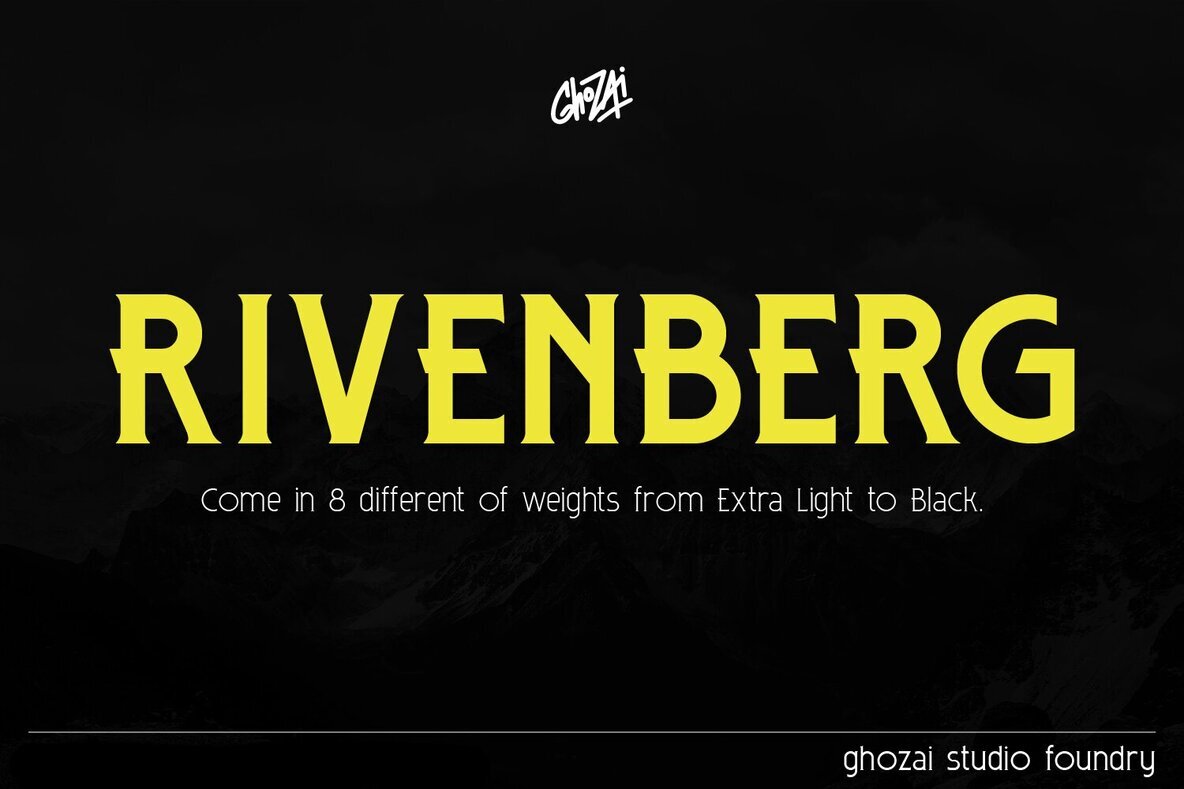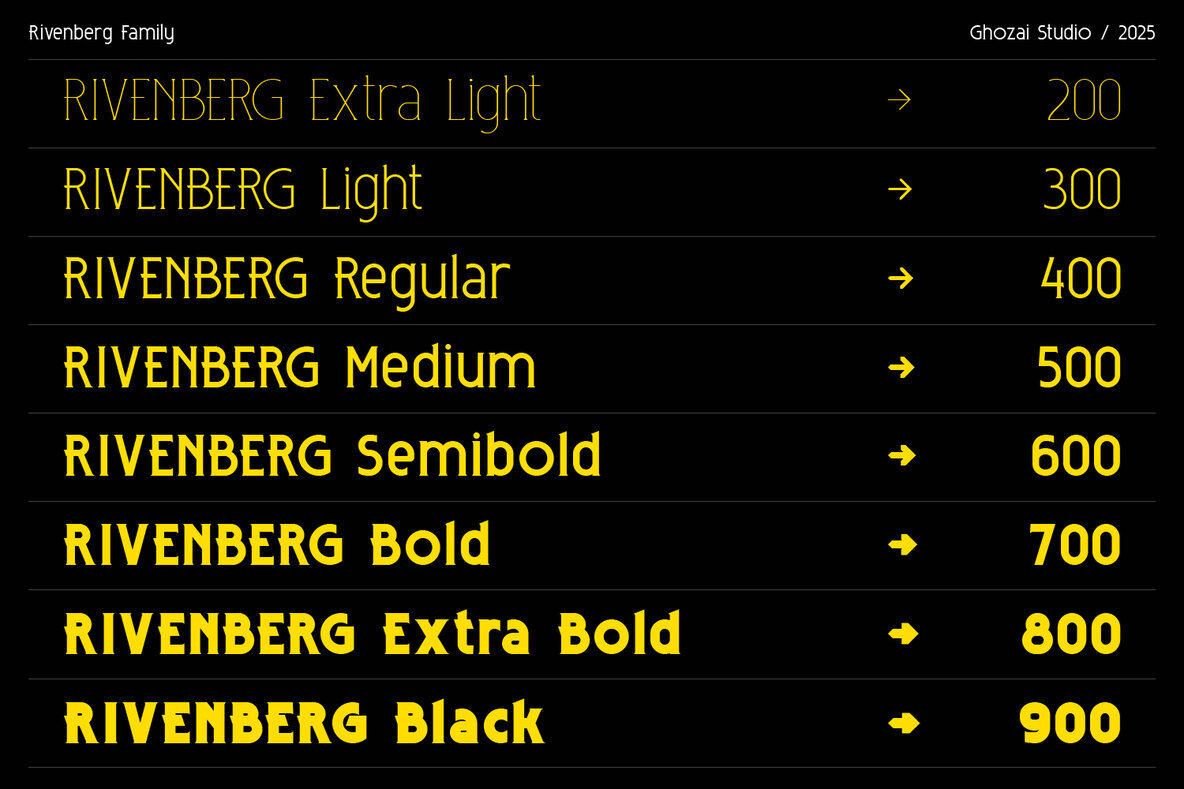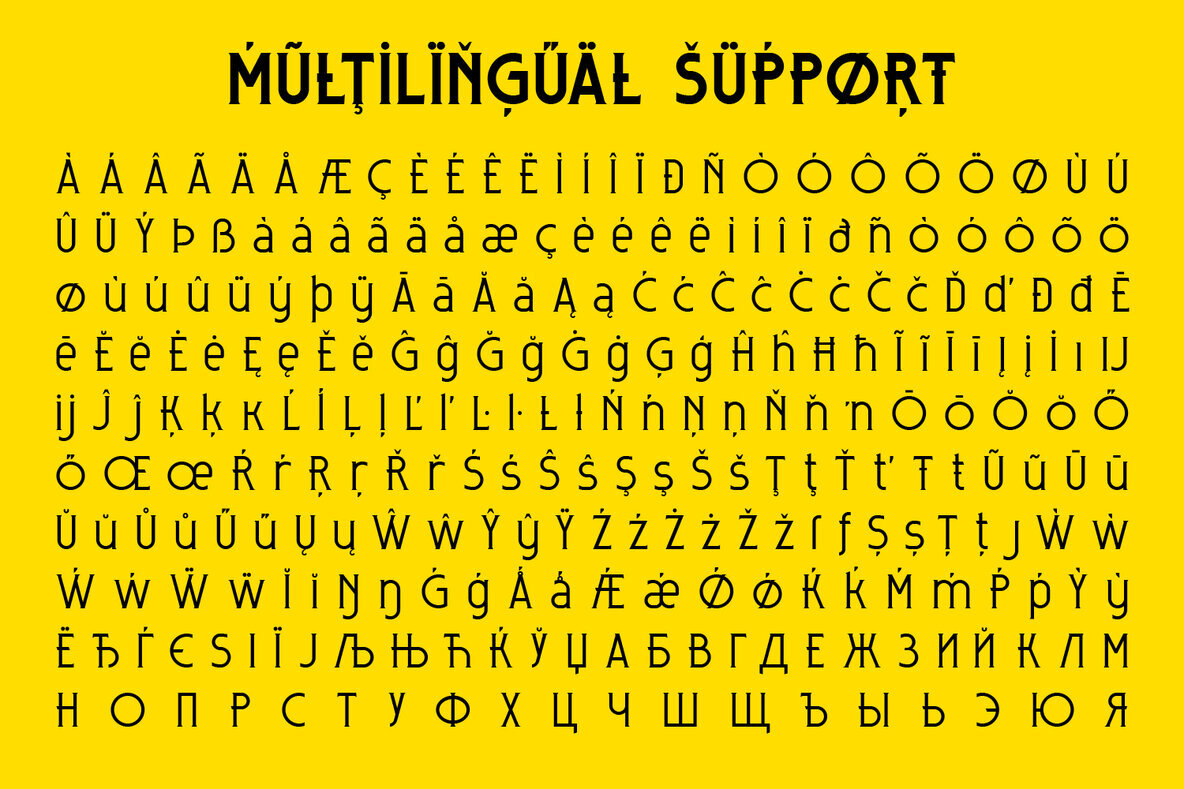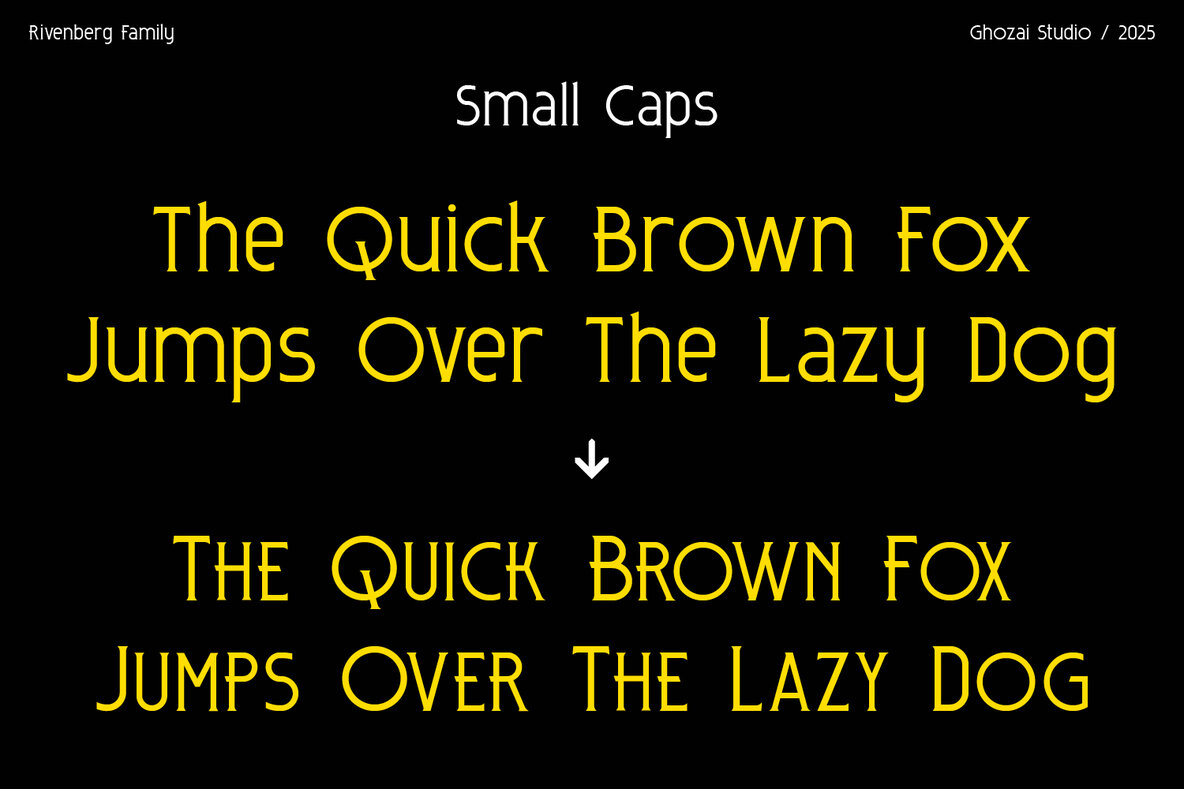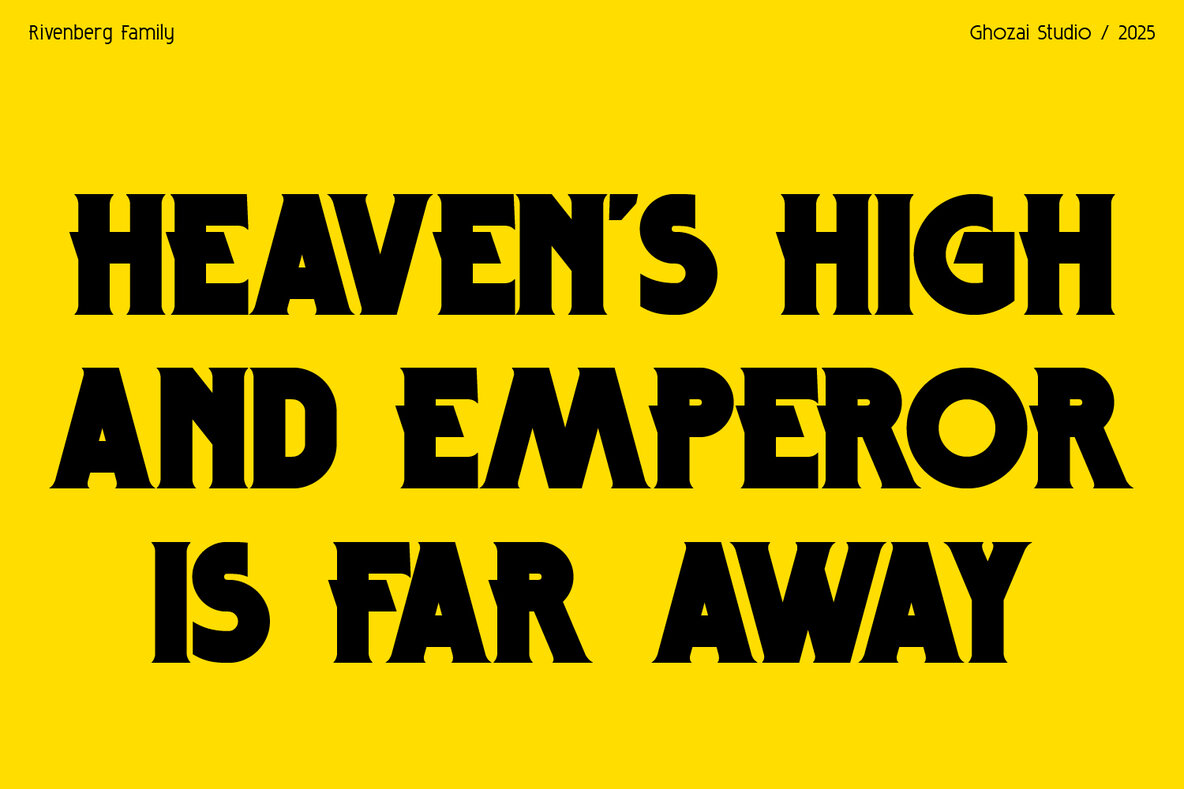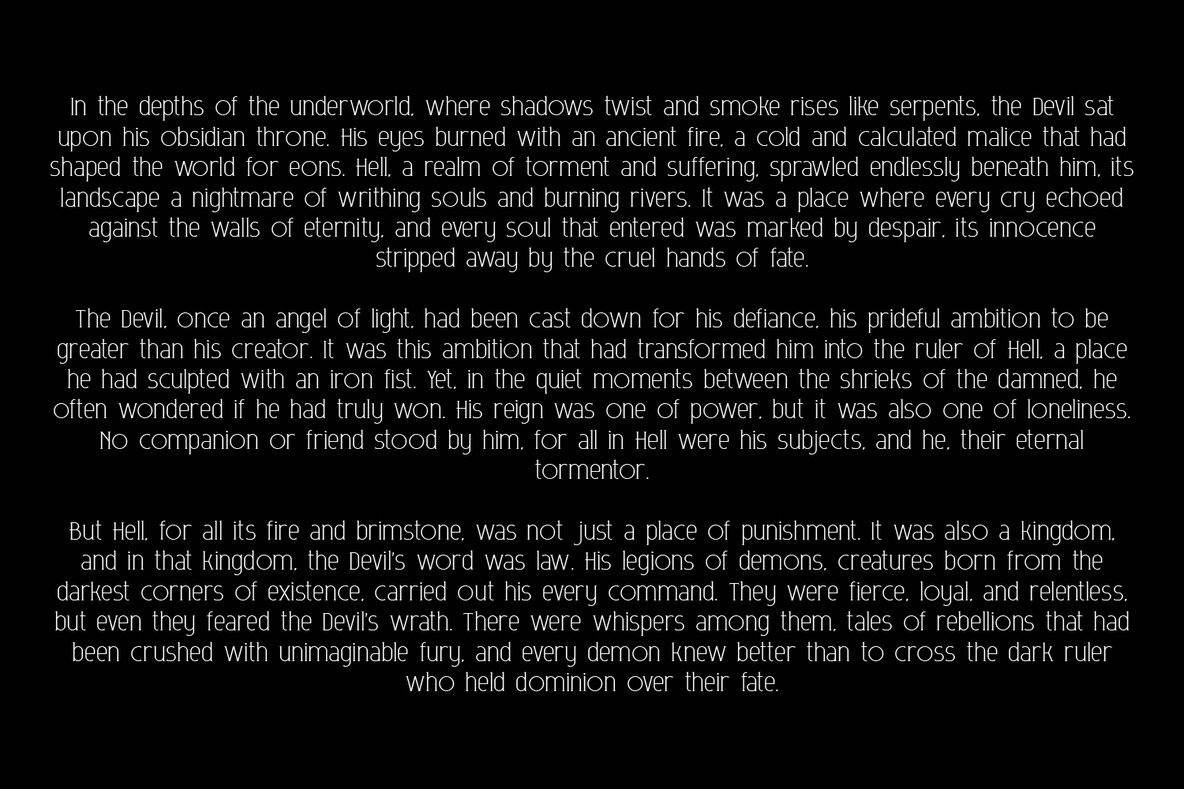
Rivenberg Font
The Rivenberg font family offers unparalleled versatility with its 8 distinctive weights, ranging from Extra Light to Black, making it suitable for a wide array of design projects. Its clean, modern style ensures your work stands out, whether it's for bold headlines or nuanced body text. This font family is crafted to deliver impact and clarity in any setting, from dynamic sports graphics to compelling signage. Rivenberg supports a multitude of languages, enhancing its global appeal. With advanced OpenType features and comprehensive multilingual glyph support, it adapts effortlessly to different contexts, facilitating seamless transitions between print and digital media. Embrace the elegance and functionality of Rivenberg and explore its limitless creative possibilities.Rivenberg Font Family